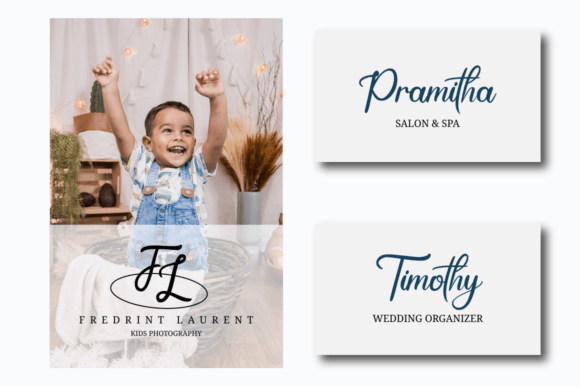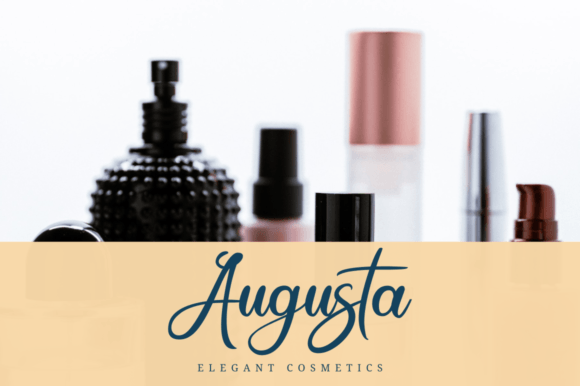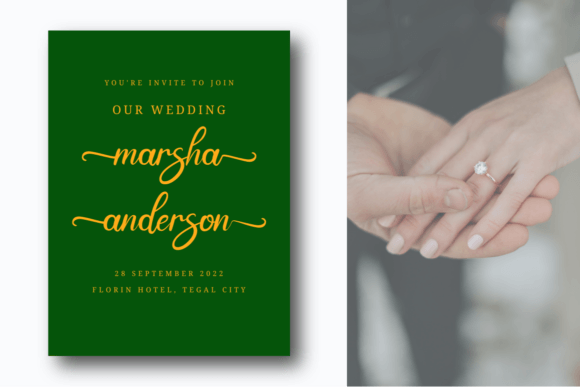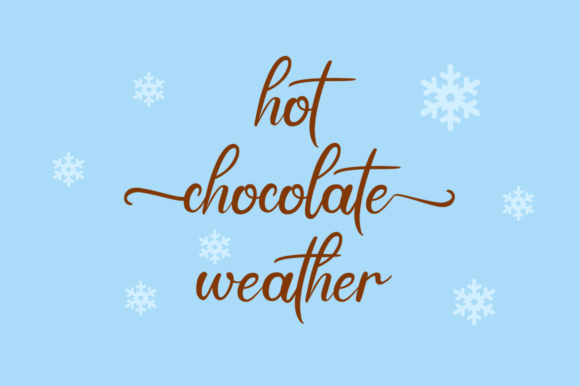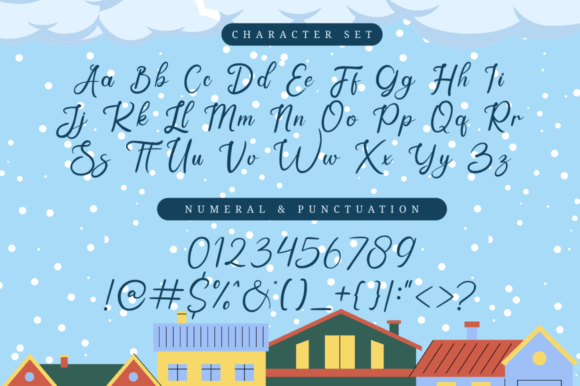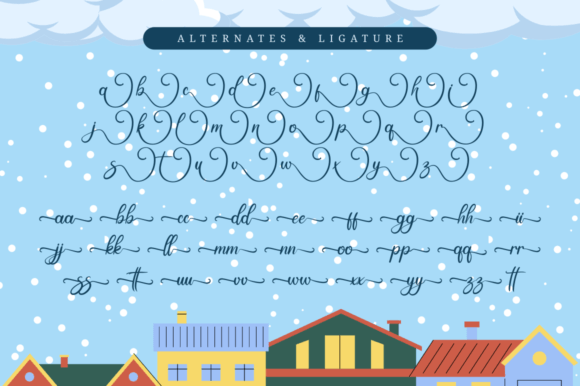
Wintersay Font
Wintersay Font Download – Stylish Elegant Script Typeface
The Wintersay Font download is a refined script typeface that blends elegance with modern usability. With its well-balanced characters and smooth strokes, this font delivers beauty and clarity across a wide range of design projects. Because it is PUA encoded, you can access all glyphs and ligatures with ease, making customization effortless.
Stylish and Elegant Script Style
Wintersay features graceful curves and flowing strokes that bring sophistication to text. As a result, it creates a timeless look while keeping every word easy to read. In addition, its elegant rhythm ensures your projects look polished and professional.
From wedding invitations to personal greeting notes, this font creates a heartfelt and stylish tone. It adds elegance and warmth, making every design memorable. Therefore, it is a great option for stationery and event-related projects.
Wintersay Font Download for Logos and Posters
The Wintersay Font download also shines in logos, posters, and branding campaigns. Its stylish handwritten flow adds a creative touch while keeping a professional appearance that suits modern designs.
Versatility Across Creative Projects
From packaging and signage to social media graphics and DIY crafts, Wintersay adapts seamlessly. In addition, its PUA encoding gives you full access to stylistic alternates, swashes, and ligatures, enhancing design flexibility.
Readability and Balanced Design
Unlike overly decorative fonts that can reduce clarity, Wintersay maintains readability without losing artistic appeal. As a result, it works equally well in bold titles and detailed supporting text.
Why Add This Script Typeface to Your Collection?
The Wintersay Font download is versatile, elegant, and easy to use. In other words, it suits invitations, logos, posters, branding, and creative projects alike. Finally, it is a script font that adds sophistication, charm, and timeless style to every design.